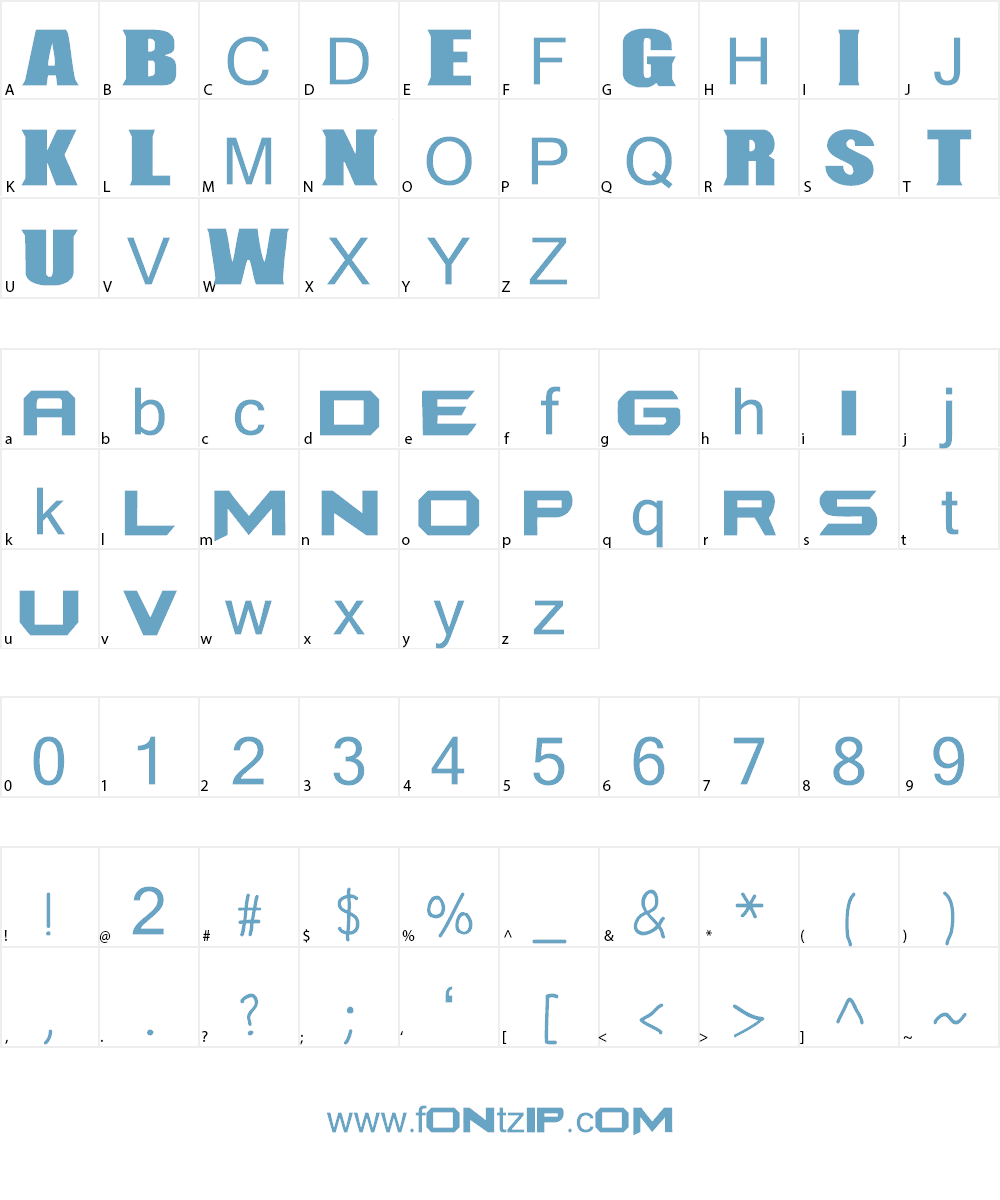
"GATE CARD SET, ABILITY ACTIVATE,.........BAKUGAN BRAWL"
This is a work in progress, it is my version of a combination of the Battlebrawlers (CAPITALS) and the Gundalian Invaders (lowercase) letters if you download this font then please donate whatever you can to SAVE the CHILDREN, also check out http://www.charityfonts.org for more of the same.